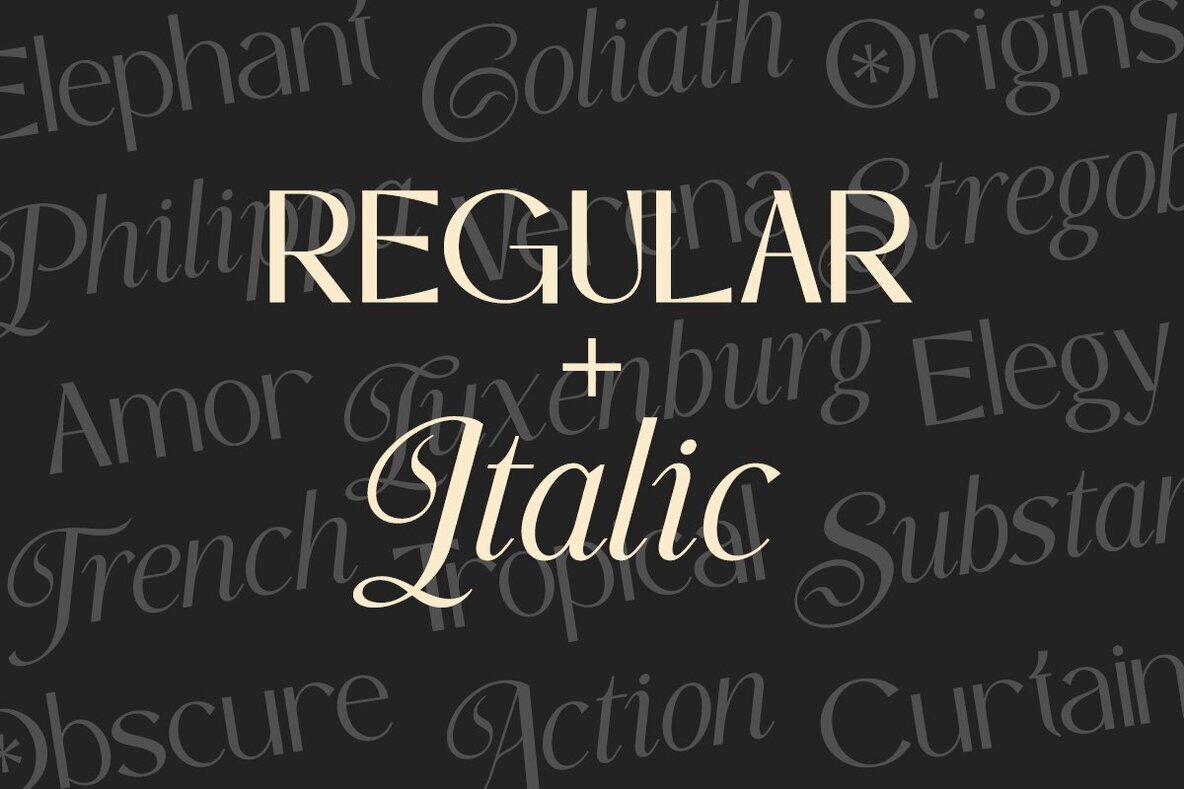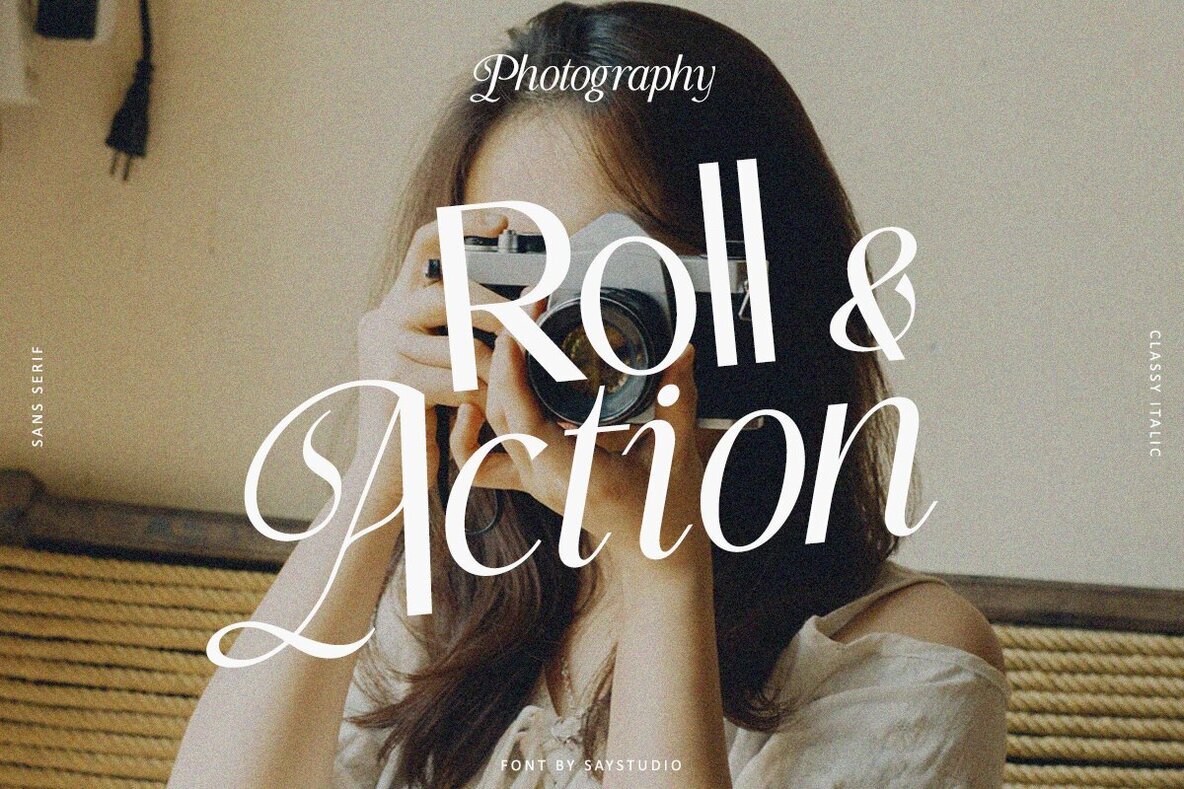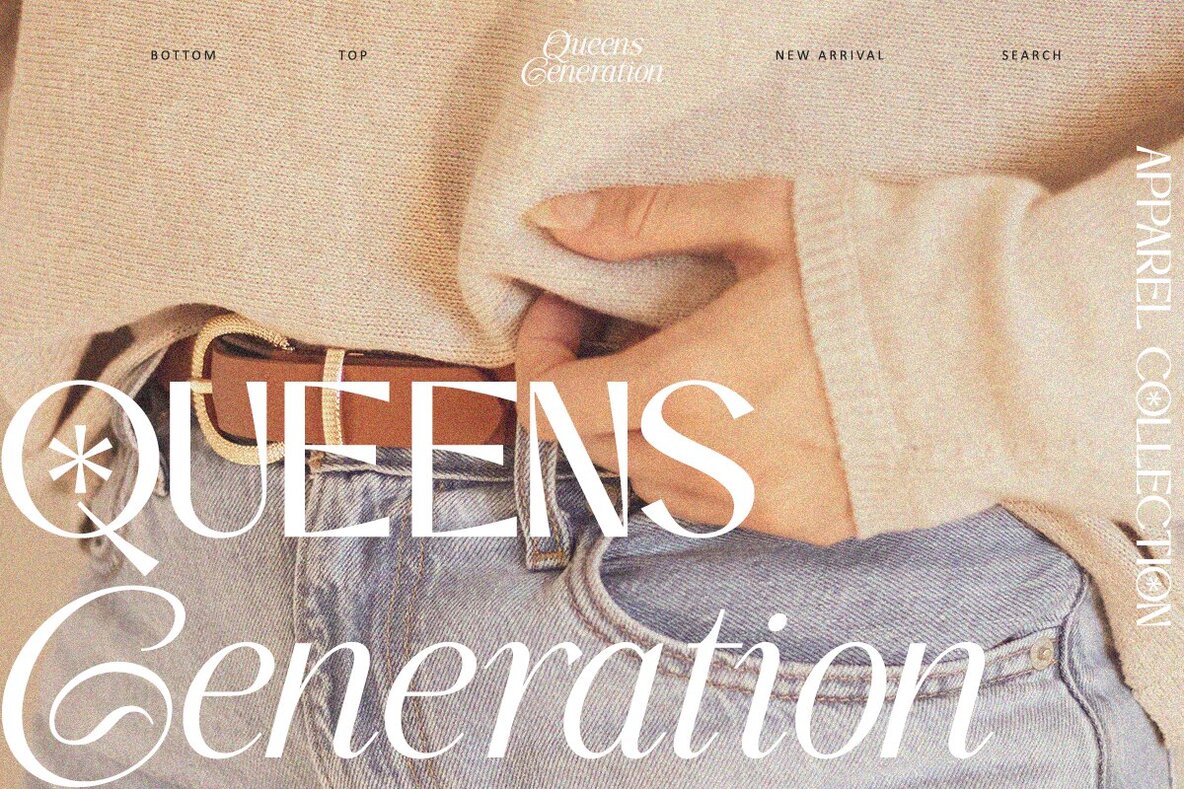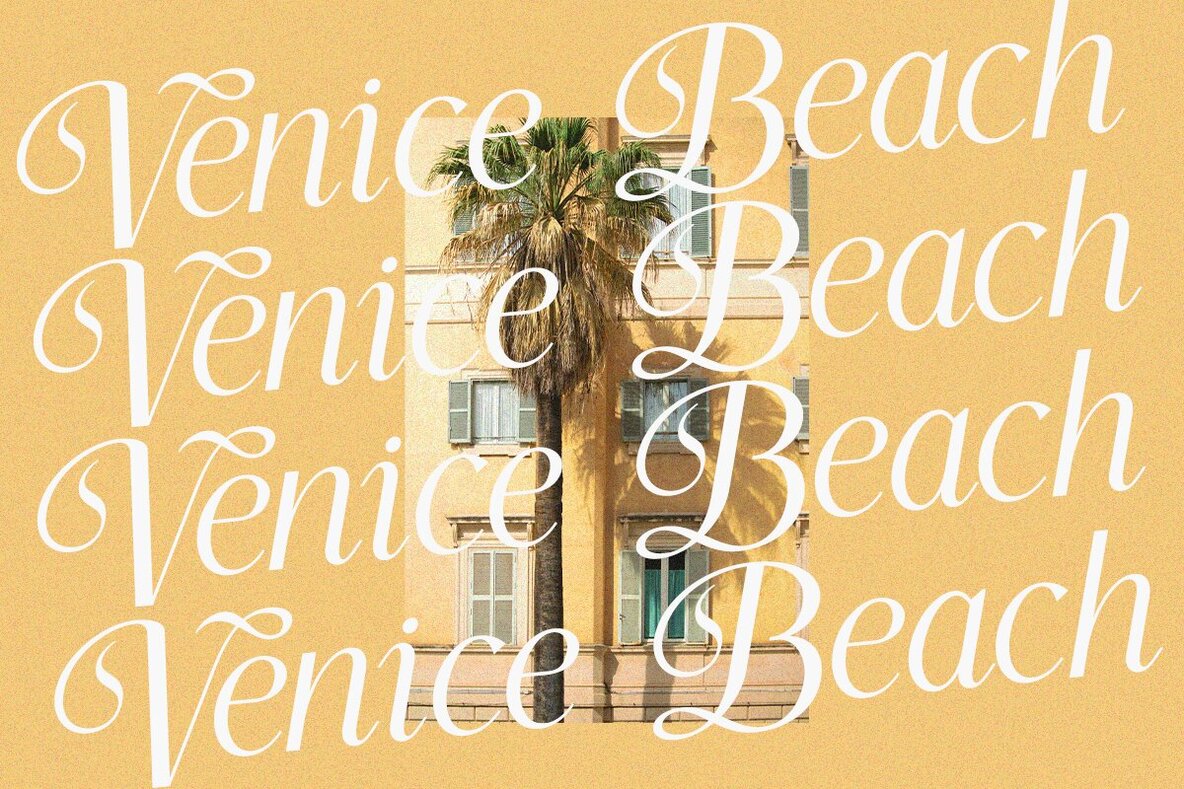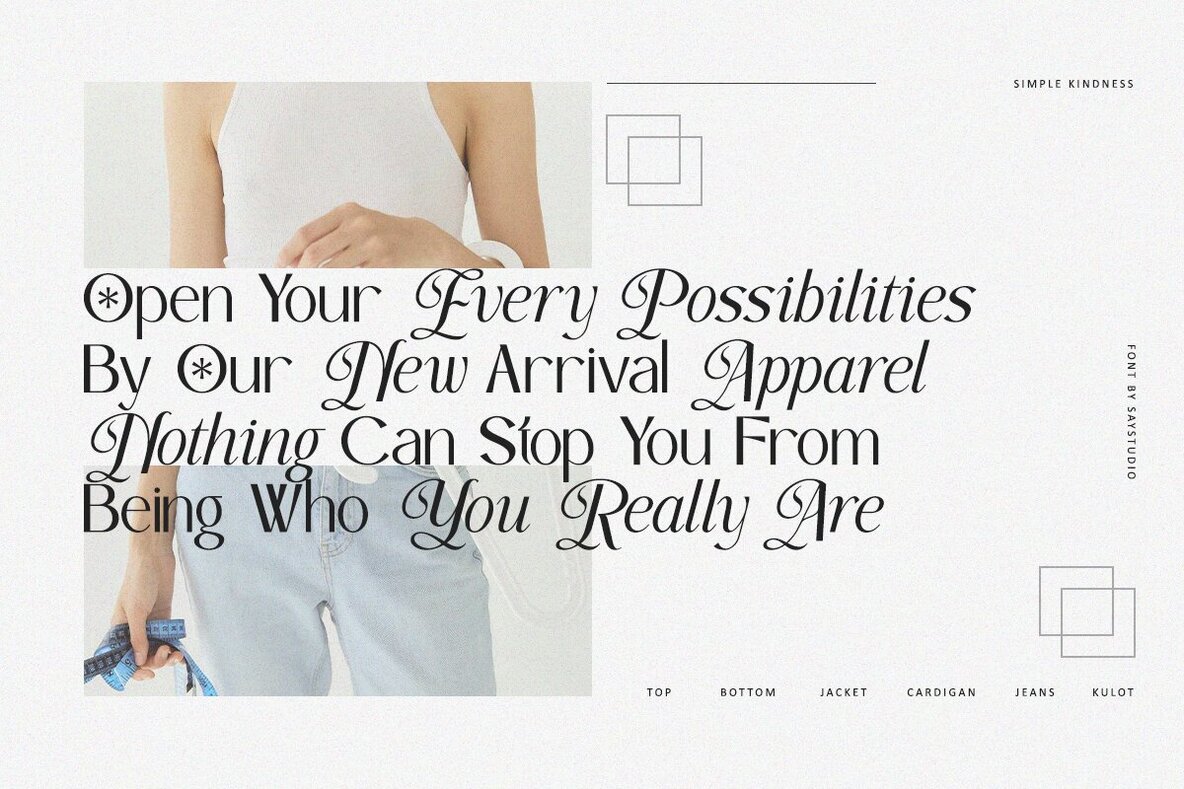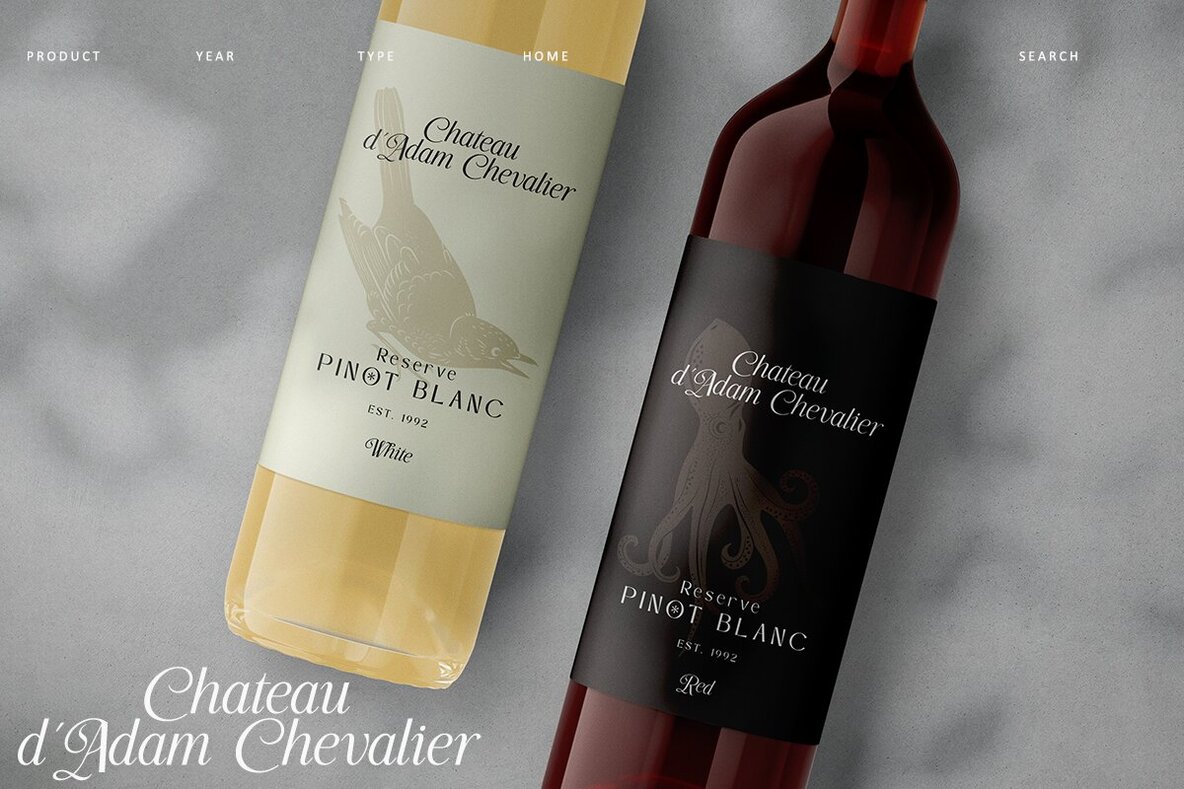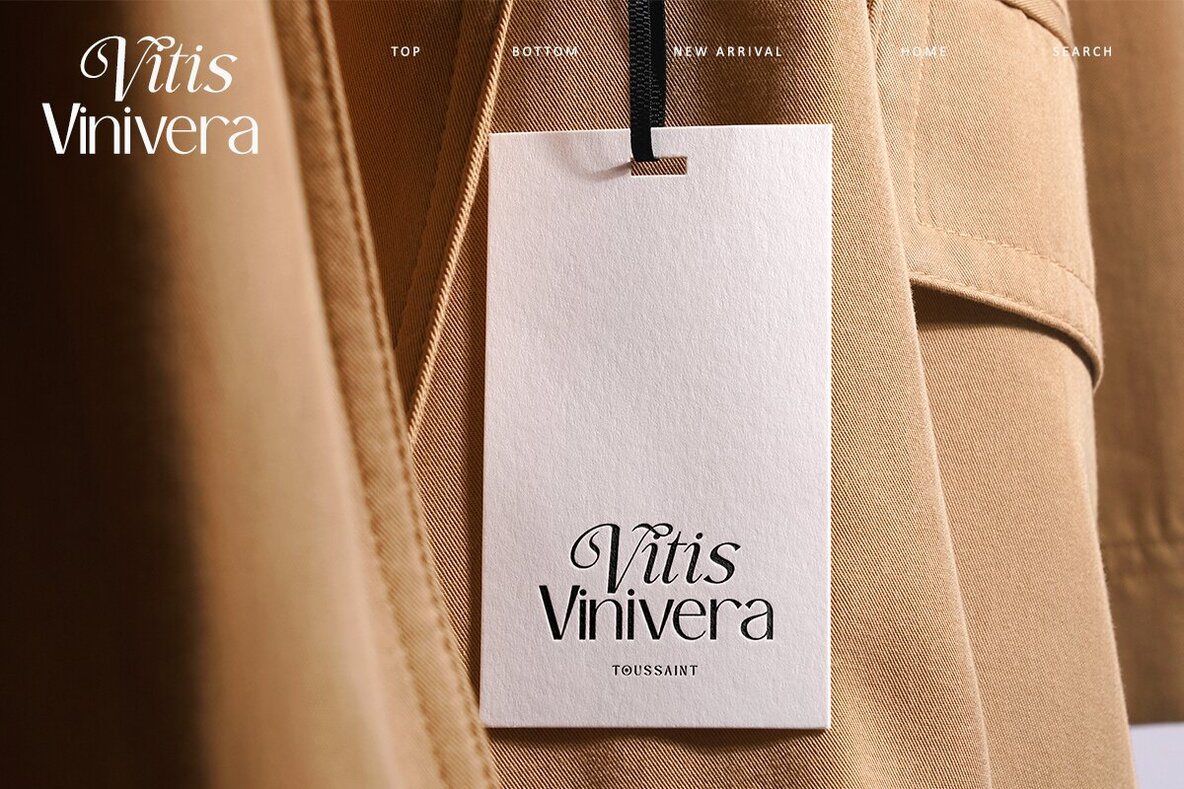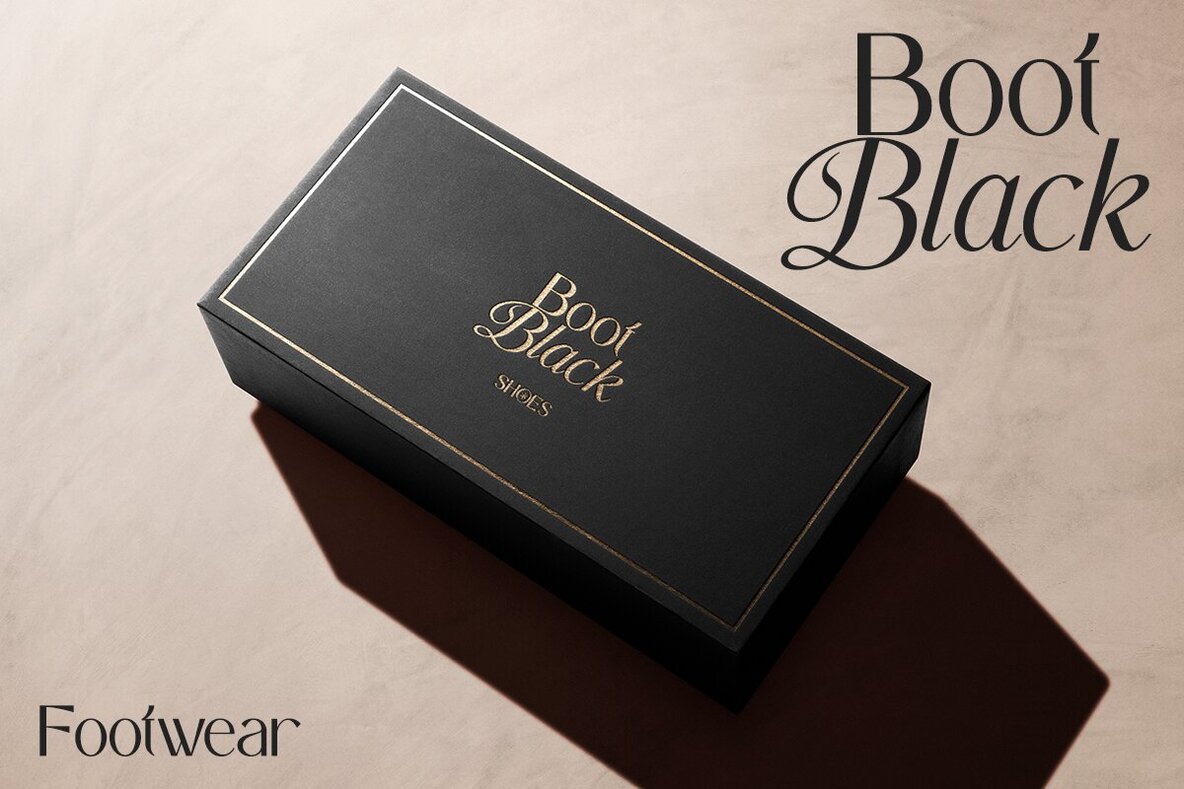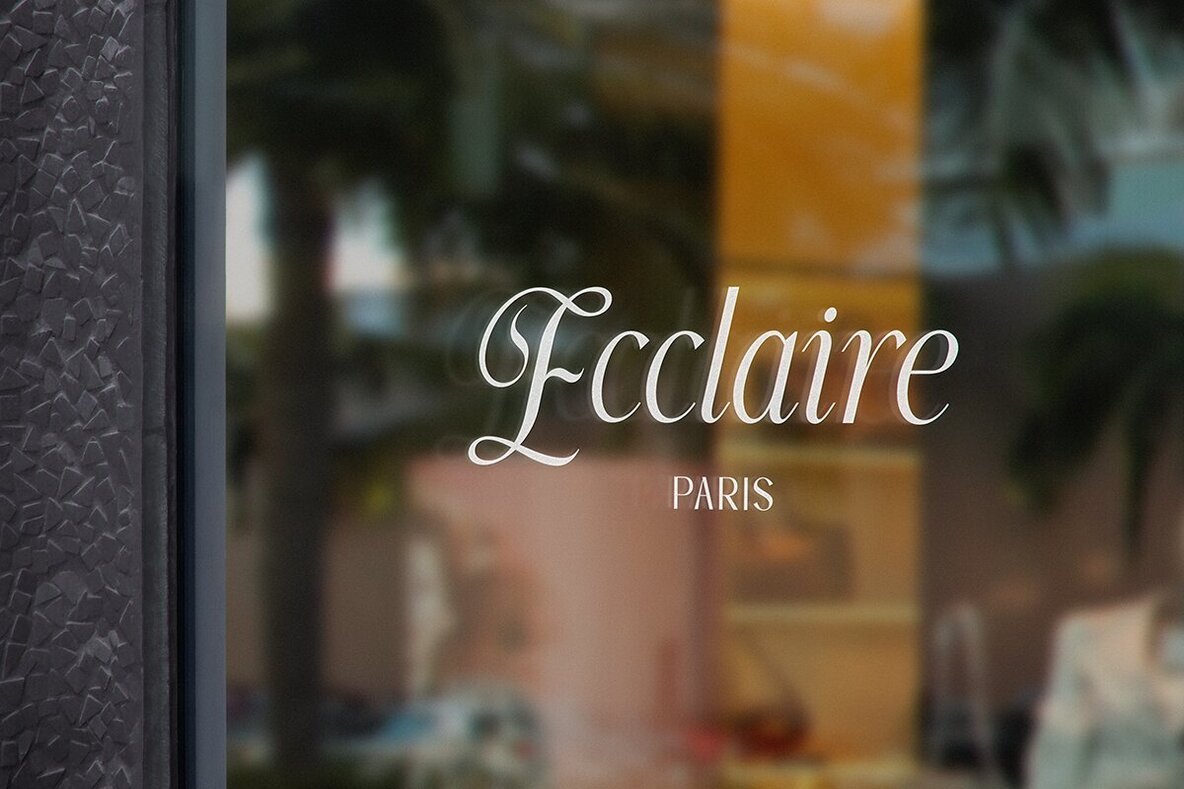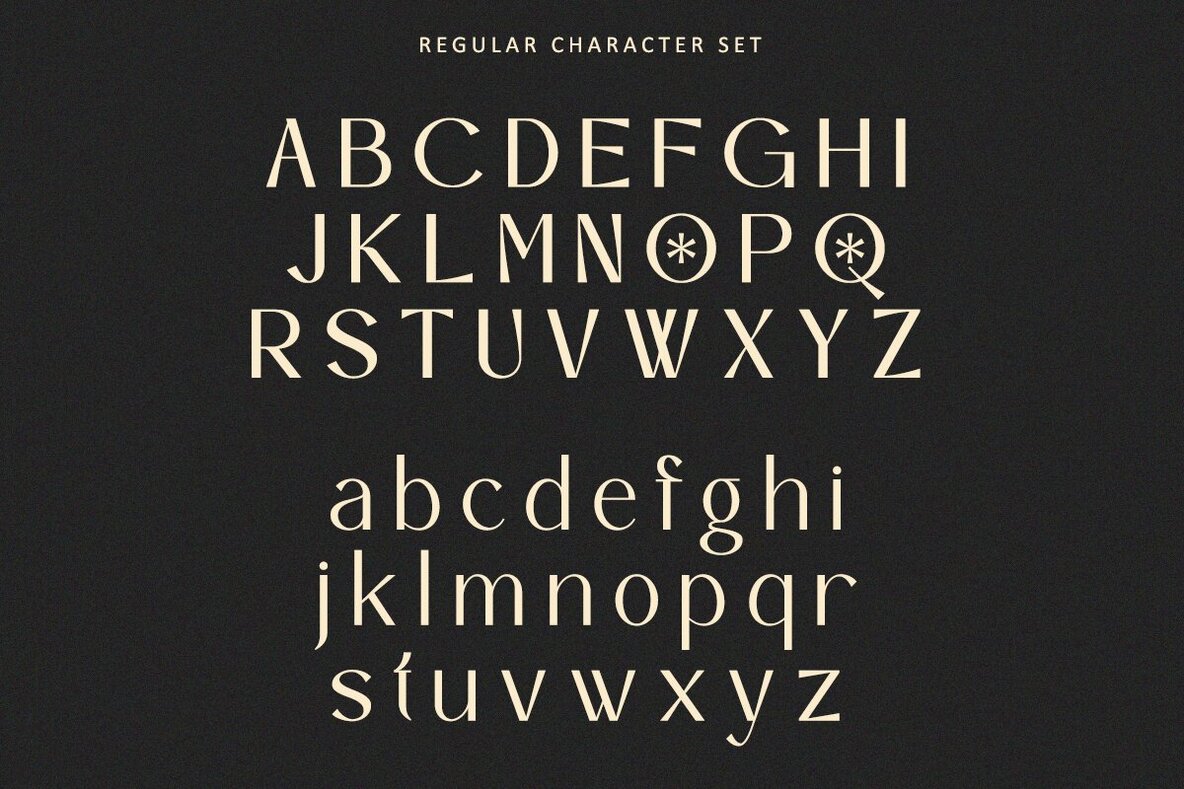
Simple Kindness Font
Simple Kindness is a modern sans serif that combines historical influences with contemporary dynamism. This typeface is available in two styles, Roman and Italic, each characterized by a distinctive uppercase form that exudes a unique elegance. Simple Kindness is well-suited for creating clean and sophisticated designs, making it perfect for logos, packaging, and editorials.Simple Kindness: A Sophisticated Sans Serif